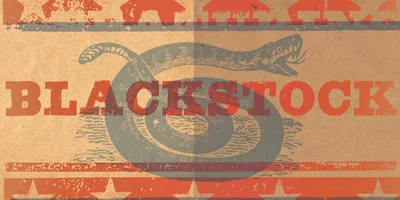
Blackstock Font
Blackstock Font is perfect for financial services branding, investment firm logos, corporate banking materials, professional consulting signage, executive business presentations, luxury asset management, and high-end commercial communications.
What makes Blackstock Font exciting is its commanding authority and financial sophistication, featuring powerful letterforms that capture the essence of Wall Street confidence while delivering exceptional professional impact and business credibility.
The Blackstock Font family includes Light, Regular, Medium, Bold, and Black weights, plus condensed variants and executive alternates that enhance the font's authoritative character and corporate appeal.
Blackstock Font embodies the pinnacle of financial authority and corporate sophistication in modern business typography. This commanding typeface represents the power and precision of high-level finance, creating a confident visual language that speaks to audiences who value financial expertise, investment acumen, and professional excellence. The font's authoritative character and corporate appearance make it ideal for financial institutions, investment firms, and business consultancies that want to communicate trust, competence, and the commanding presence of financial leadership.
Financial organizations and investment firms consistently select Blackstock Font for projects that require authentic financial credibility and authoritative visual impact. The typeface's powerful construction and executive personality make it exceptionally effective for banks, investment companies, and financial advisors where trust and professional authority are paramount. Each character has been crafted with institutional precision to ensure maximum impact across all financial applications and corporate environments.
The business advantages of Blackstock Font extend beyond its financial appeal to include practical functionality for diverse corporate applications. The font maintains excellent readability in complex financial documents while delivering the distinctive character that sets serious financial institutions apart from less established competitors. Its comprehensive character set includes financial symbols and corporate elements that make it particularly suitable for investment documentation and business communication.
Investment banks, wealth management firms, and corporate financial services frequently choose Blackstock Font because of its ability to instantly convey financial expertise and institutional authority. The typeface's commanding aesthetic helps establish credibility in competitive financial markets while appealing to clients who value professional competence, financial stability, and the confidence that comes from working with established financial institutions and experienced investment professionals.